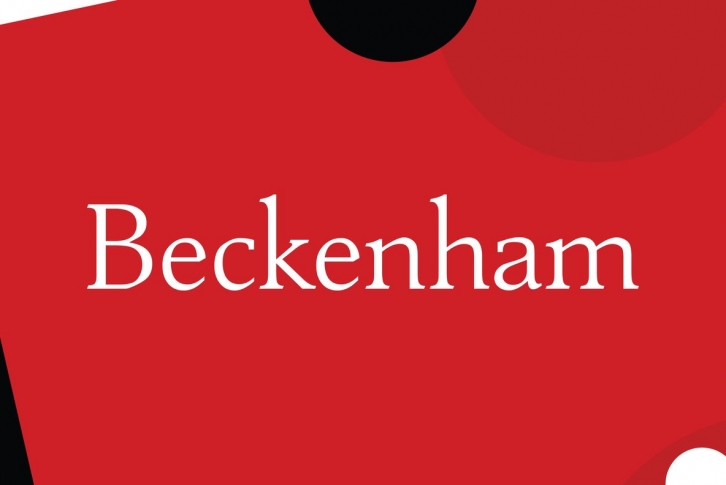
Designed by Les Usherwood, Beckenham was digitally engineered by Steve Jackaman. The x-heights are radically different; the x-height on the light version is small, and gets larger as the weights progress.